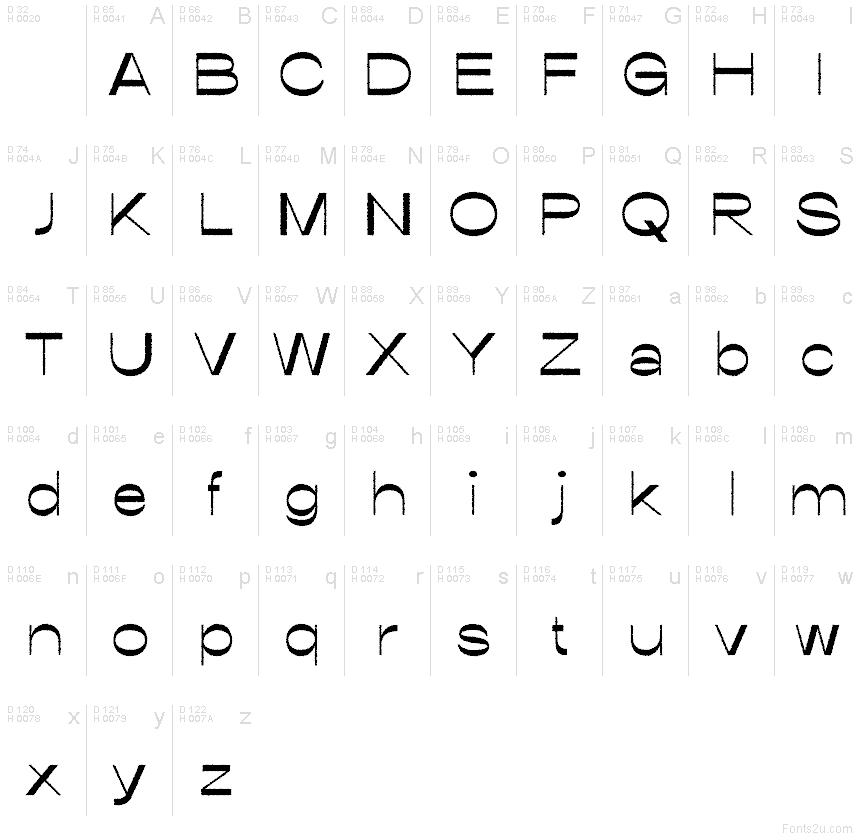
RaelyRough-Regular Demo
Raely Rough font by Craft Supply Co. blends artistic distinction with modernist influences through its distinctive letterforms and expanded width, ideal for giving text a bold influence without sacrificing legibility. The clean design of the 1960s is reflected in Raely’s playful yet geometric appearance, making it an elevated resource in any designer’s toolkit.
Use Raely in branding, identity design, packaging design, logotype creation, brochures — and add superb quality to the look of your Instagram post quotes and printed quotes. Clothing design will also benefit from this fantastic font accompanied by product labels and book cover designs.